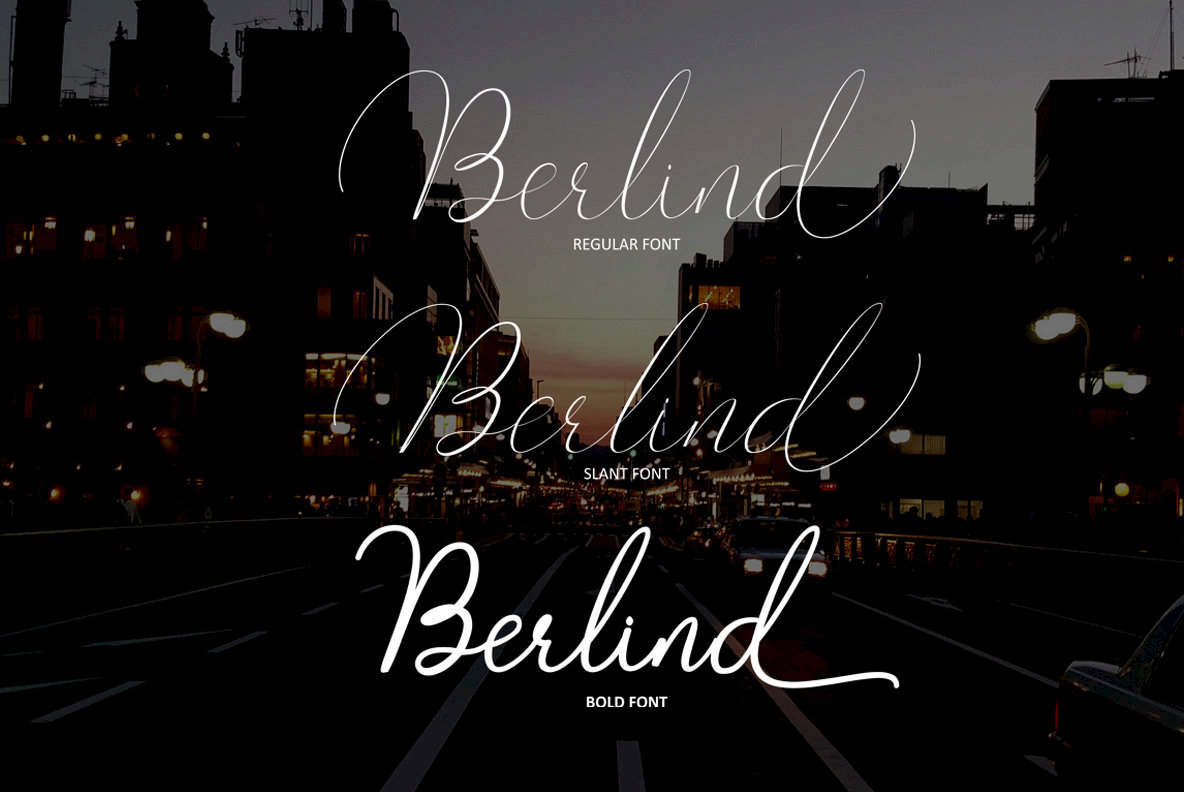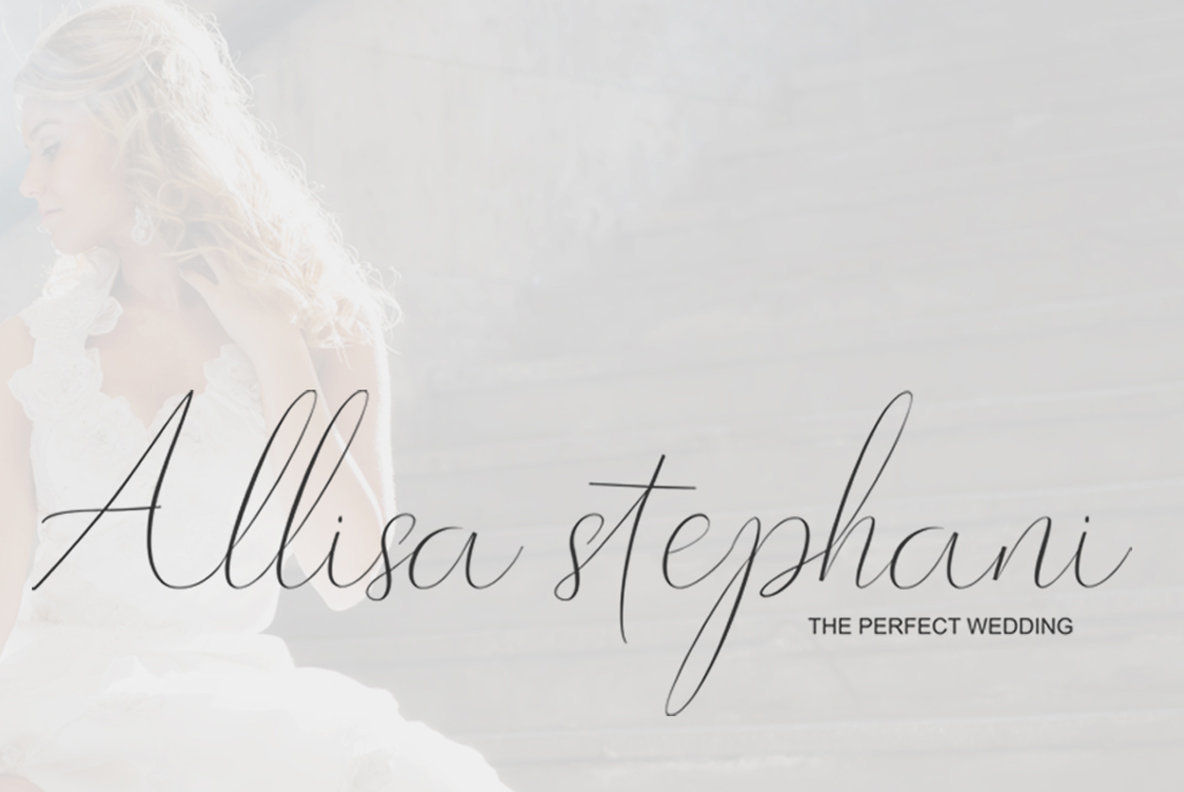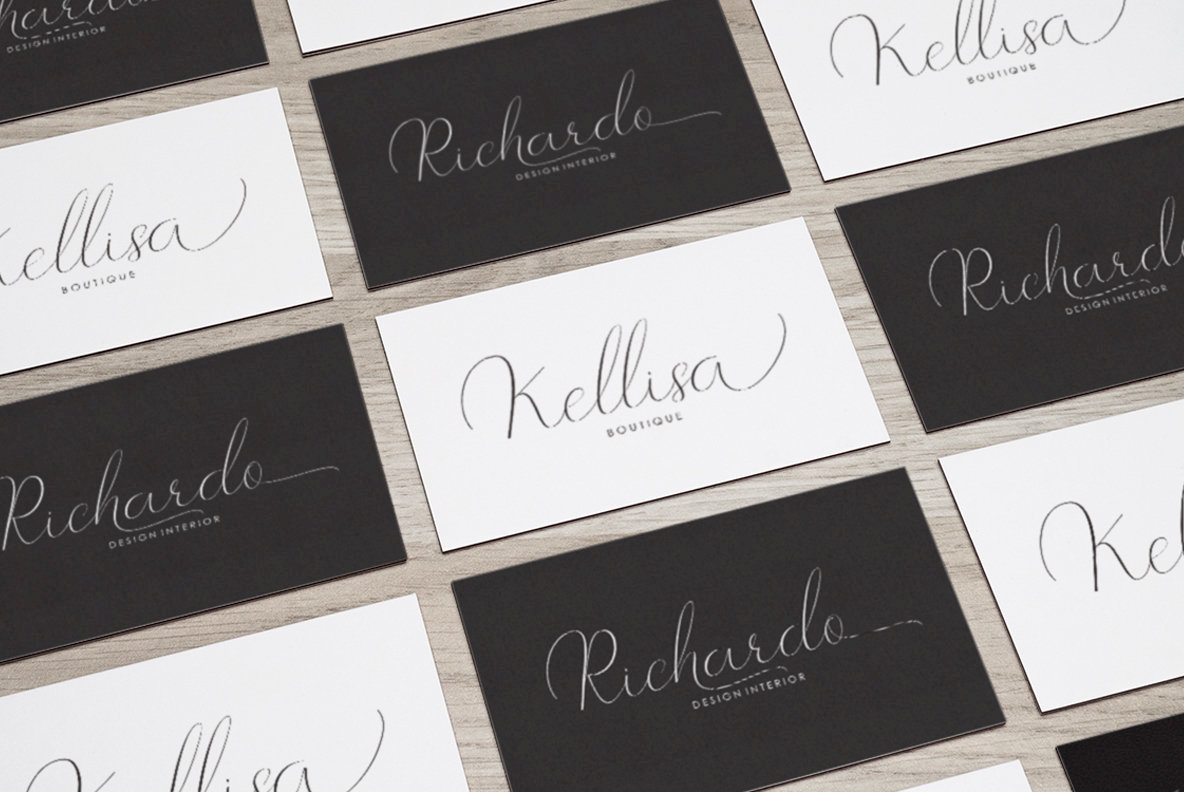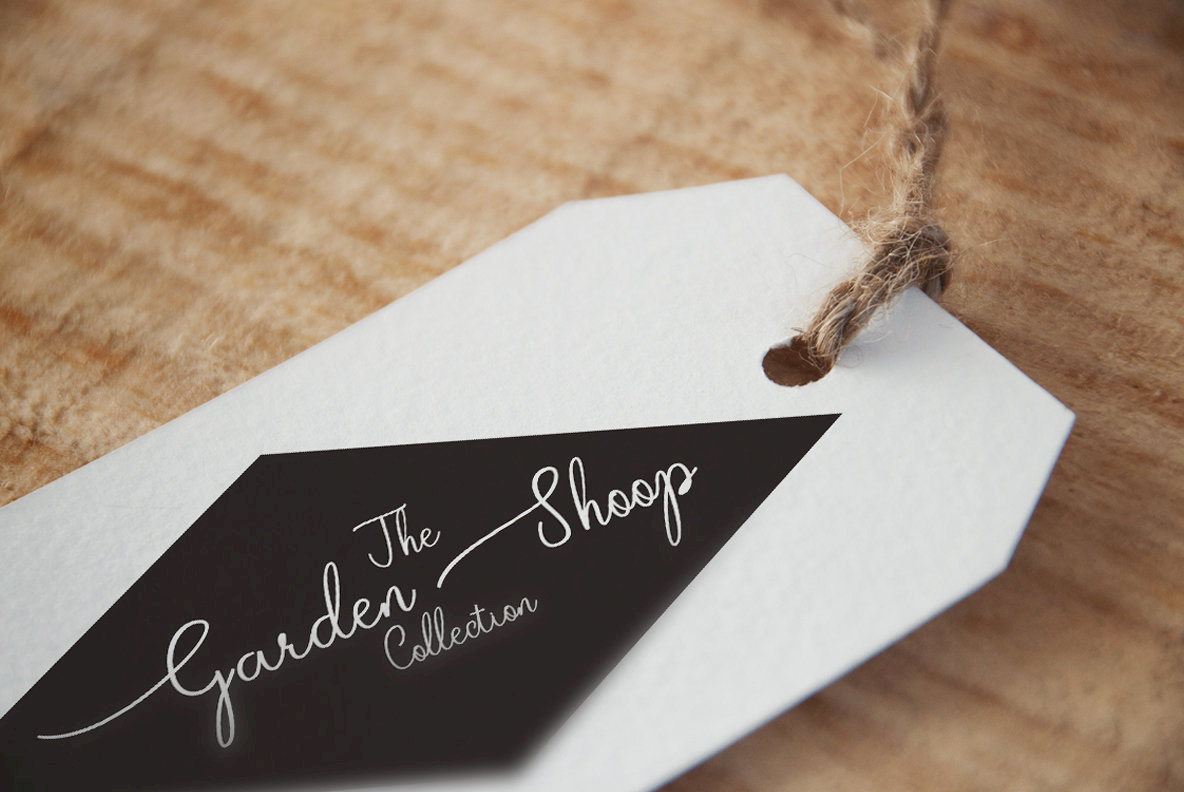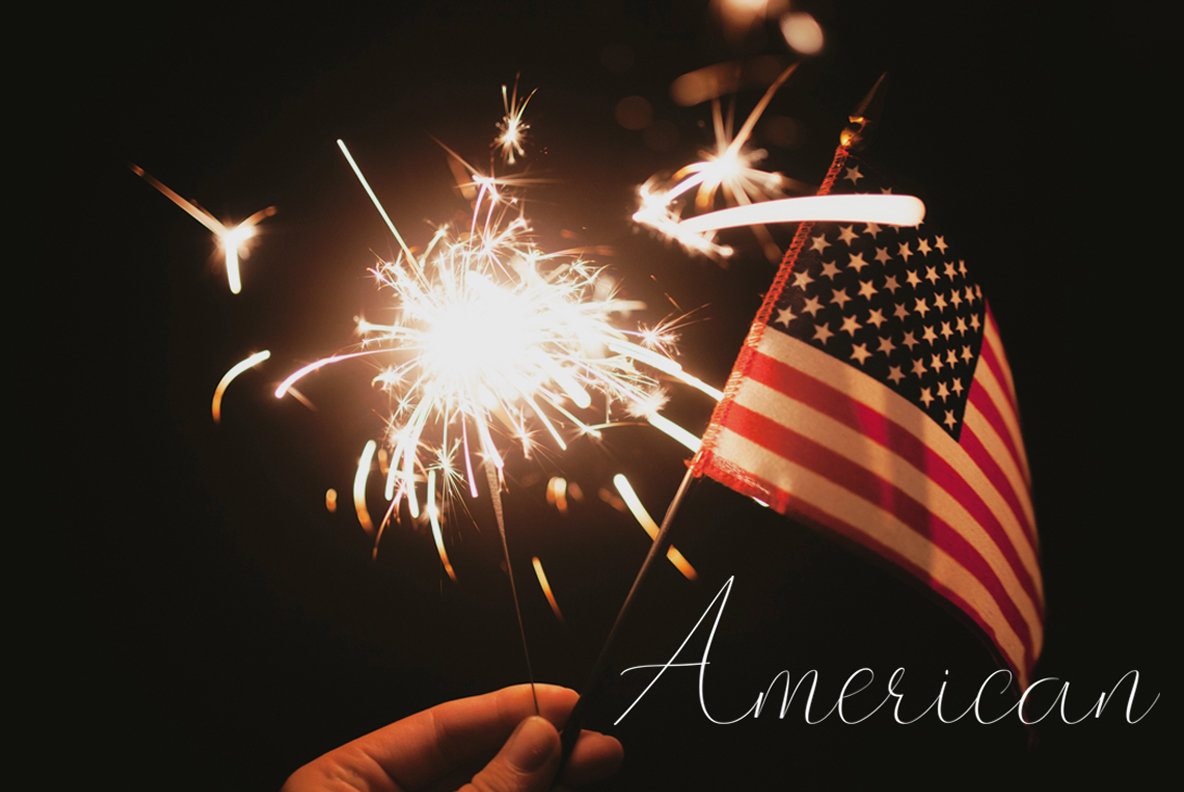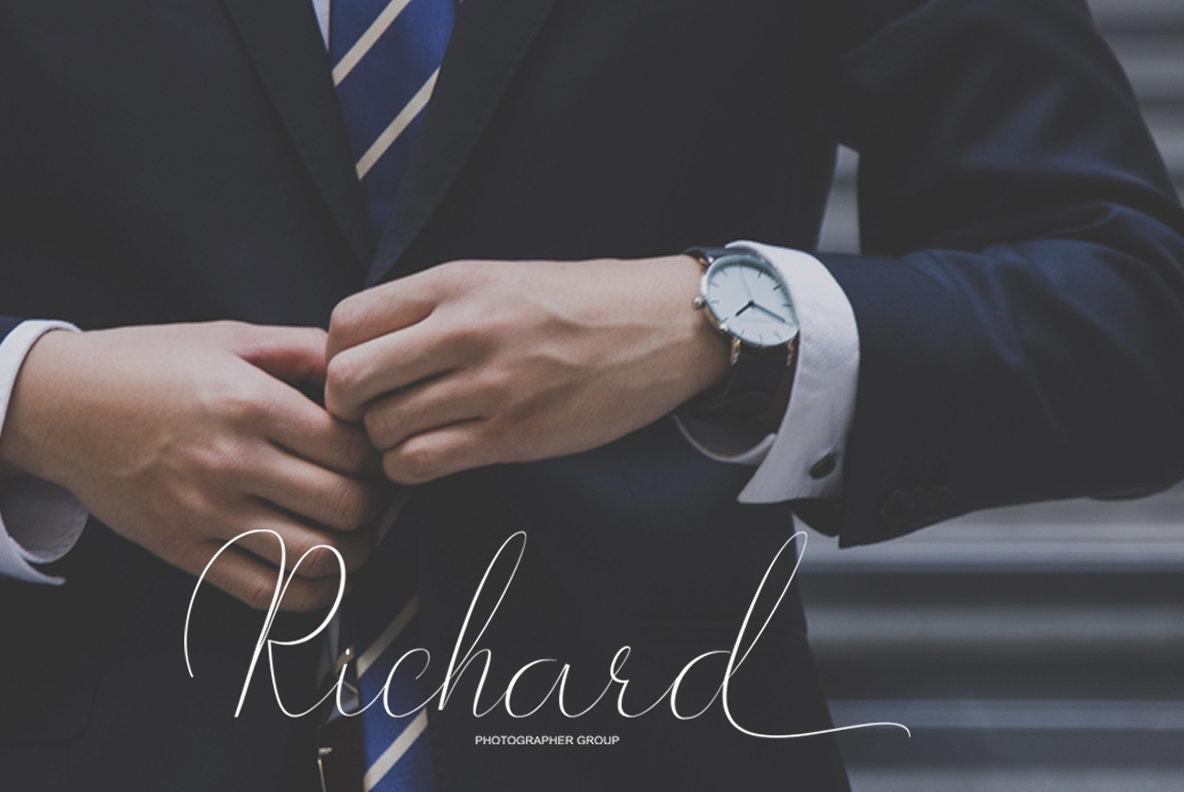
Berlind Font
Berlind Script by Teuku Zulfikar brings the allure of a classic handwritten typeface to your design projects. This beautiful formal script is an excellent choice for everything from wedding invitations and branding to logos and greeting cards. Its versatile elegance also enhances print ads, signage, and magazine layouts. Accessing Berlind Script's wide range of stylistic alternatives is straightforward with the proper software. Whether using Adobe programs or supported platforms like CorelDraw, you can unleash this font's full potential, integrating swashes and ligatures effortlessly via OpenType features. For more options, utilize font management utilities such as Character Map or Font Book.Berlind Script: Timeless Handwritten Elegance